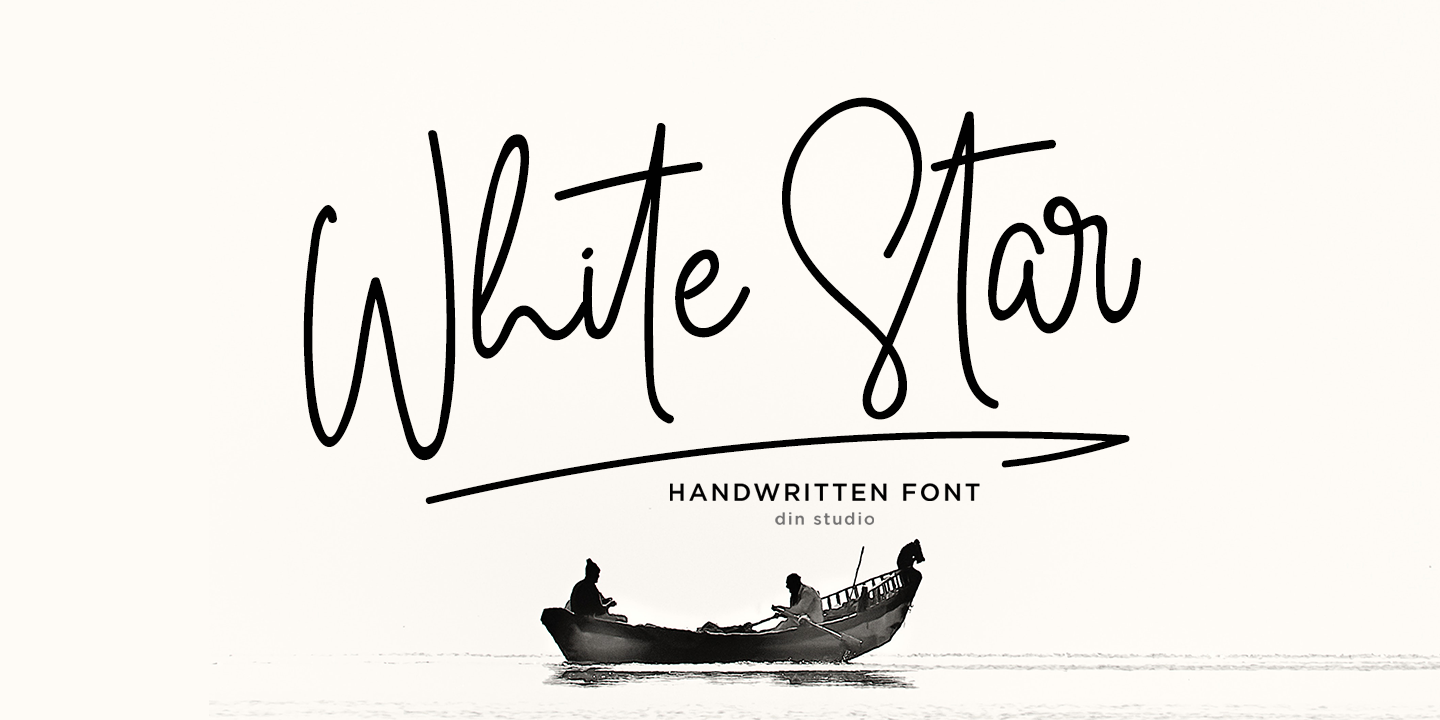
White Star Font is ideal for luxury hotel branding, premium yacht club marketing, high-end cruise line materials, elegant event invitations, upscale restaurant menus, maritime heritage museums, exclusive resort advertising, sophisticated travel agencies, nautical-themed weddings, and prestigious hospitality projects that require refined maritime elegance.
What makes White Star Font exciting is its ability to evoke the golden age of ocean travel and maritime luxury through its elegant letterforms that capture the sophistication of grand ocean liners and exclusive yacht clubs. This distinguished typeface embodies the spirit of first-class travel and nautical prestige with its refined character that speaks of champagne toasts on moonlit decks and exclusive voyages across pristine waters. The font's stellar presence creates an immediate sense of luxury and maritime heritage.
The White Star Font family includes regular, light, and bold weights designed to maintain its maritime elegance across various luxury applications. Special nautical symbols, star ornaments, and ocean-inspired decorative elements complement the main typeface, while enhanced spacing ensures optimal readability for both intimate ship cabin communications and grand cruise terminal displays.
White Star Font Free Download offers luxury hospitality designers access to typography that commands respect on the high seas. Its expertly crafted letterforms maintain excellent legibility while projecting an image of maritime luxury and exclusive travel experiences. The font's versatile nature works beautifully for both historic maritime institutions and modern luxury cruise operations.
Navigate toward excellence with White Star Font and create designs that celebrate the timeless elegance of maritime luxury while inspiring dreams of extraordinary ocean adventures.